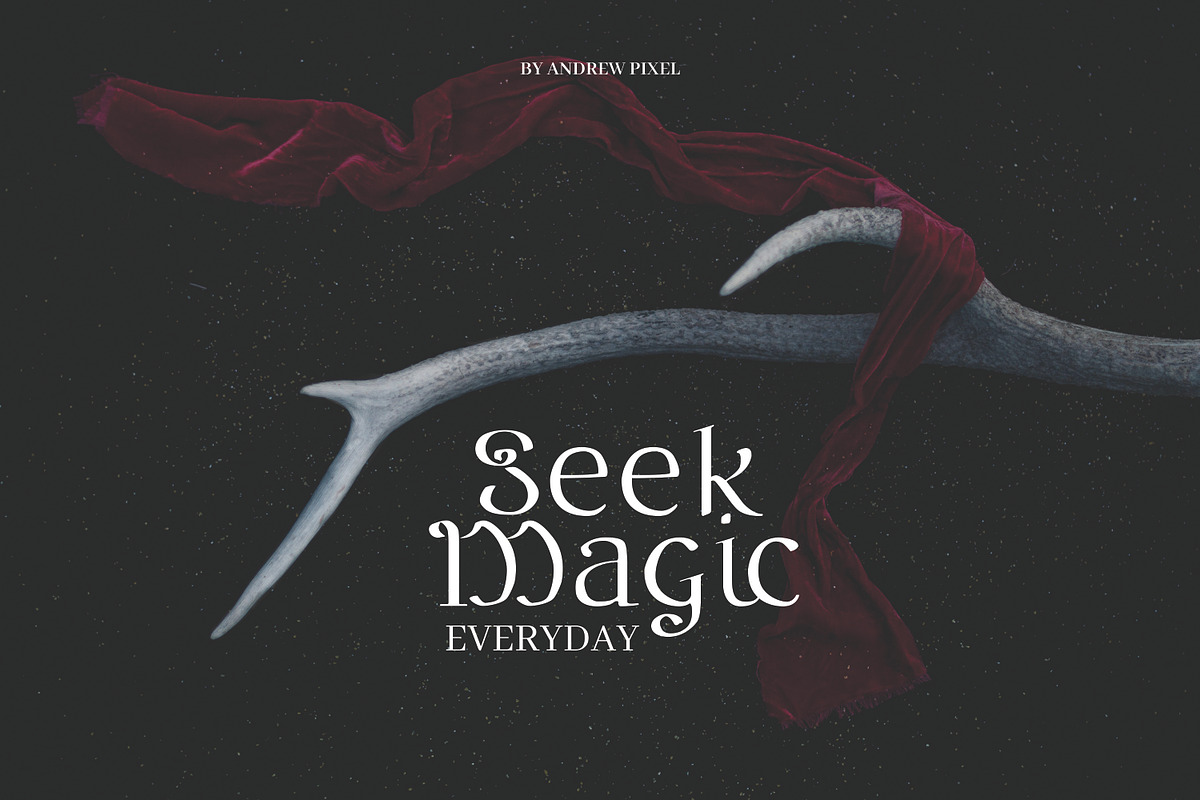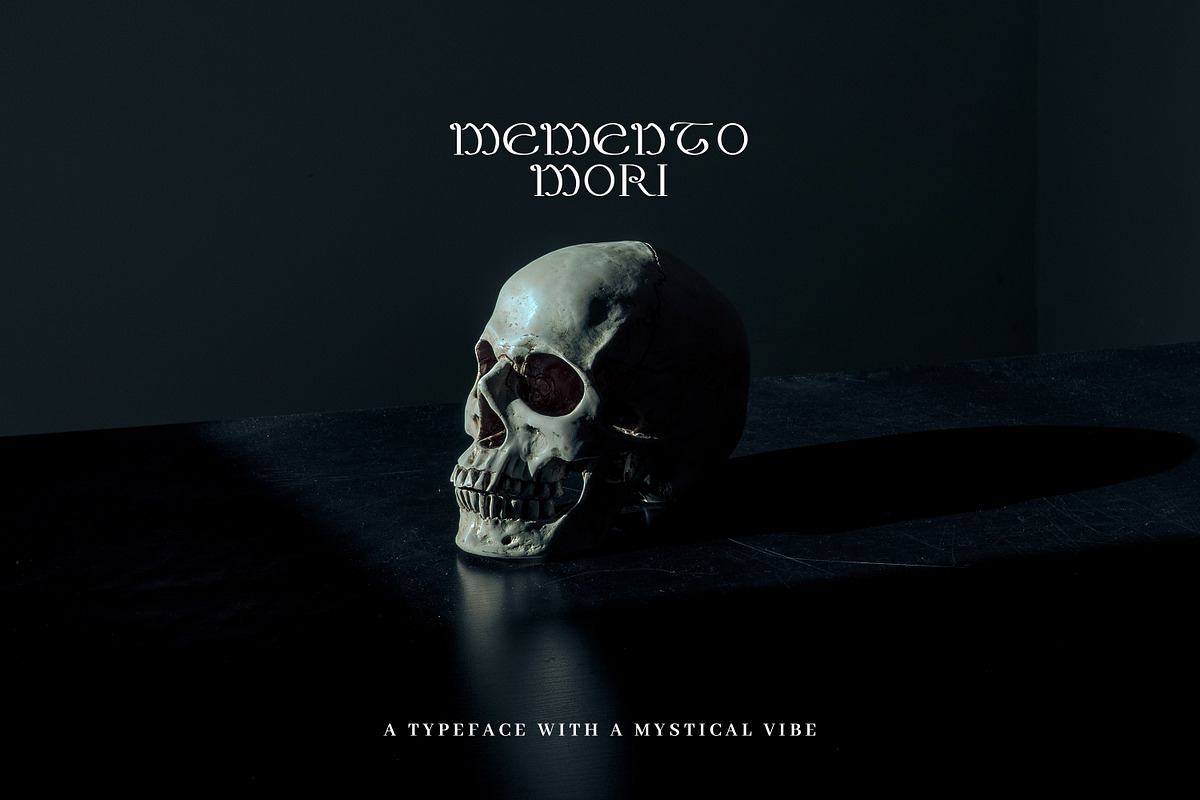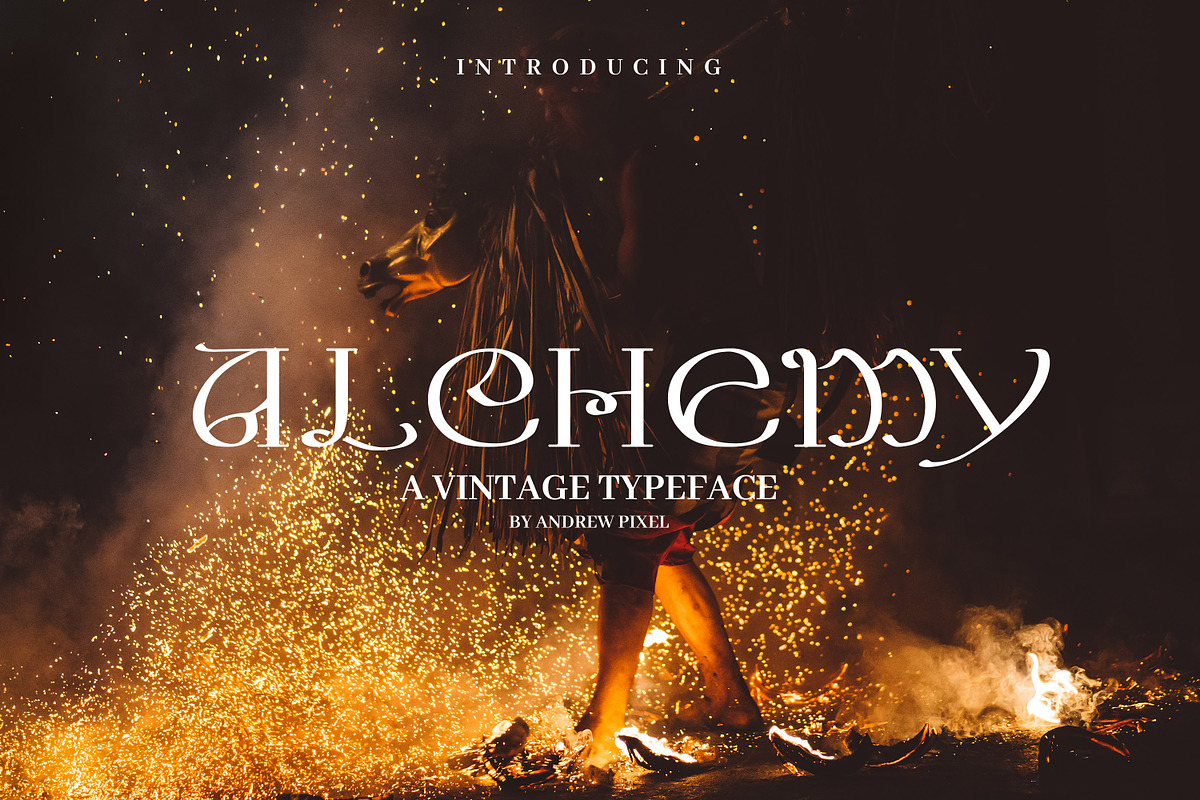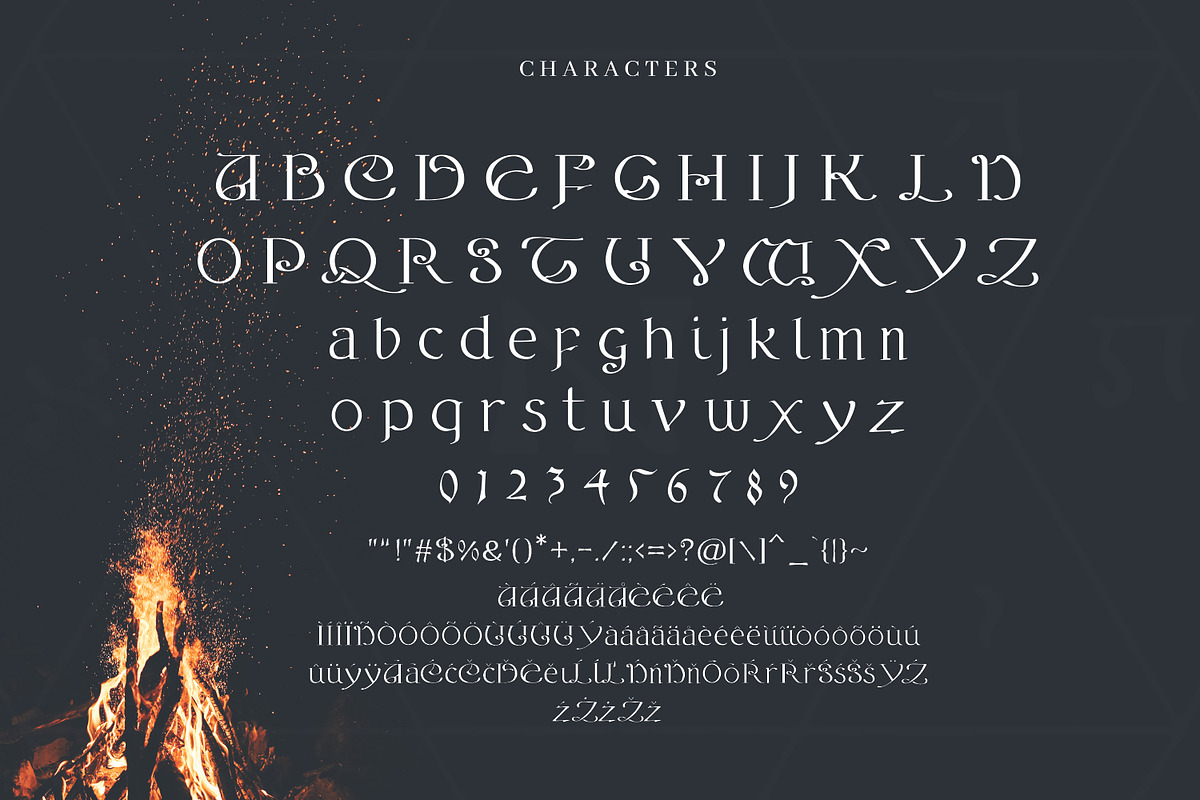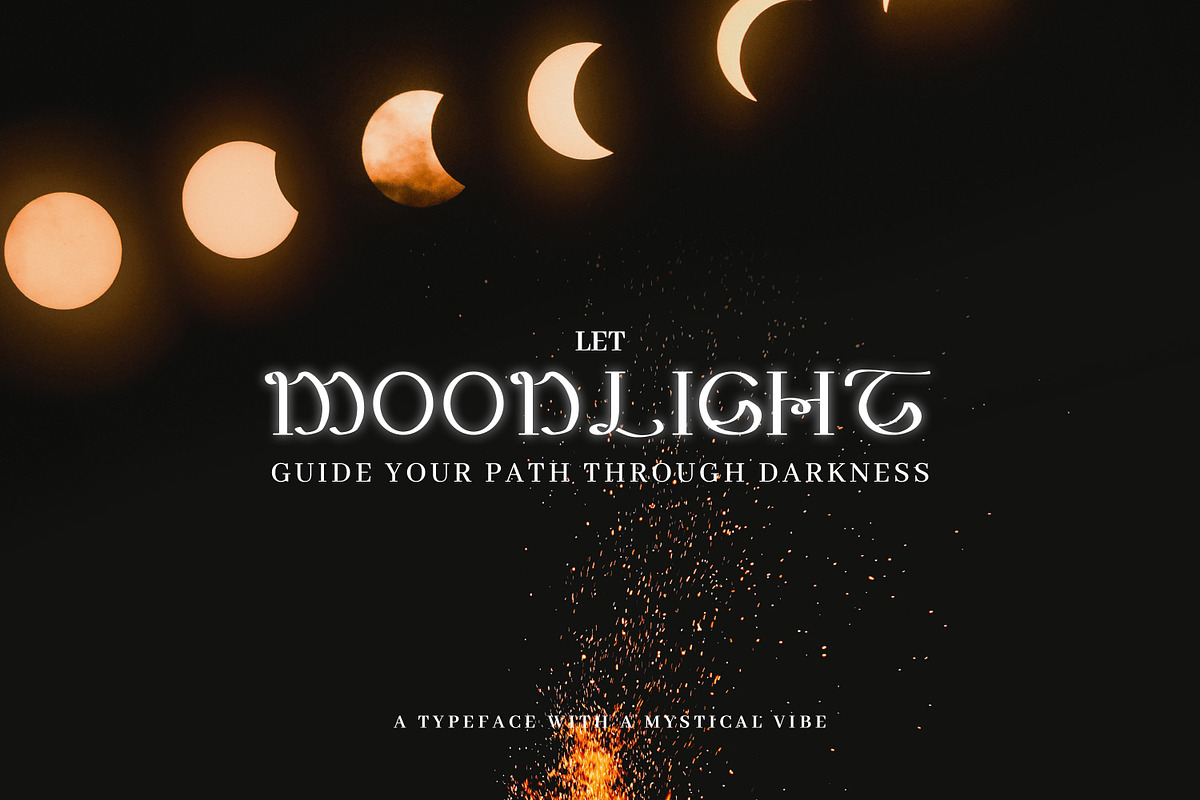
Alchemy - A Magical Typeface
Alchemy - A Magical Vintage Typeface is a display font with a mystical atmosphere. A typeface which brings about the feeling you have in the early hours of a morning when sun is just to burst over the horizon and glace you with its warmth. Or when you're alone in the middle of night and the bright full moon is lighting up your room.
The typeface comes with a set of lower and uppercase letters and with a multilingual support. Here's what's included:
The font suits perfectly for all occasions that require a little magical vibe. Happy creating!